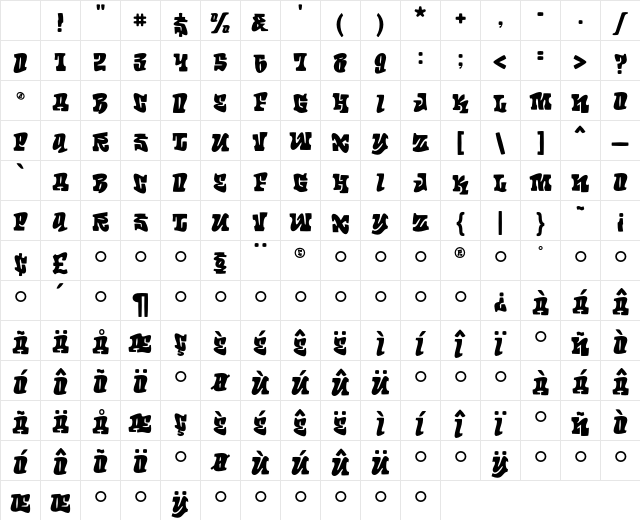
Complete House Mix glyph index. Displaying only characters natively supported by House Mix font.
House is a composed and adaptable typeface that performs quietly and consistently across a wide range of design contexts.